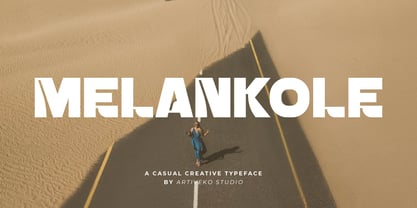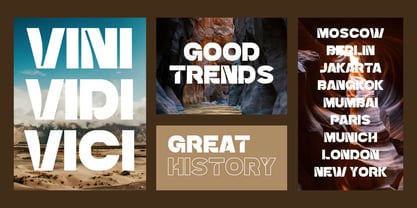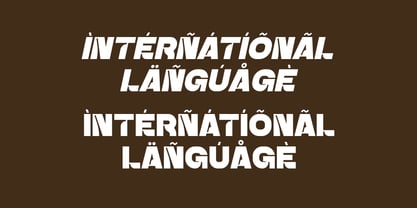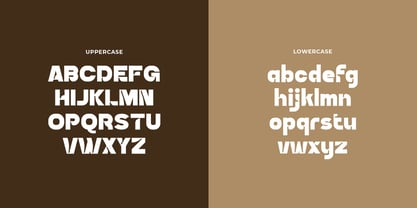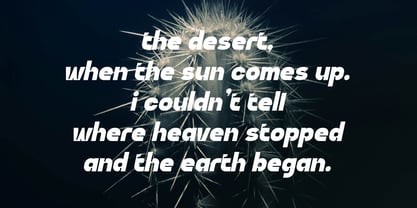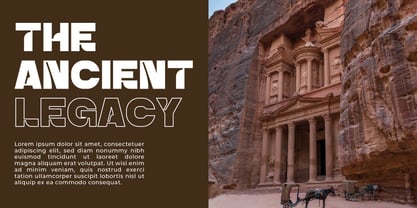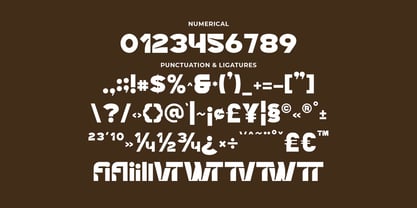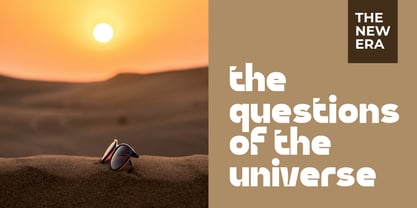
Melankole
by Artiveko
The Melankole Font Family was designed by Iwan Alwan and published by Artiveko. Melankole contains 2 styles and family package options. More about this family
Melankole is a bold sans serif font designed to deliver strength, clarity, and modern confidence. With its thick strokes, solid structure, and balanced proportions, Melankole creates a powerful and stable typographic presence that works perfectly for impactful visual communication. Ideal for branding, headlines, posters, logos, packaging, editorial titles, and digital promotions, Melankole offers excellent readability while maintaining a strong and assertive personality. Its clean construction allows it to adapt easily to both minimal and expressive design concepts. Melankole includes uppercase and lowercase characters, numerals, punctuation, multilingual support, and stylistic alternates to give designers the flexibility needed for professional typography systems. Build bold, clear, and confident visuals with Melankole — a bold sans serif font crafted for modern, powerful, and high-impact design.
Designers: Iwan Alwan
Foundry: Artiveko